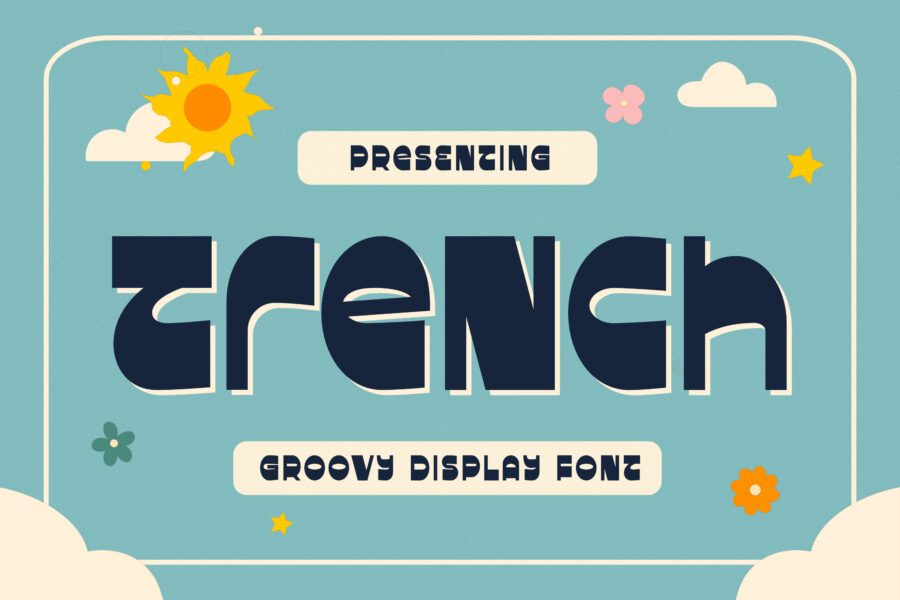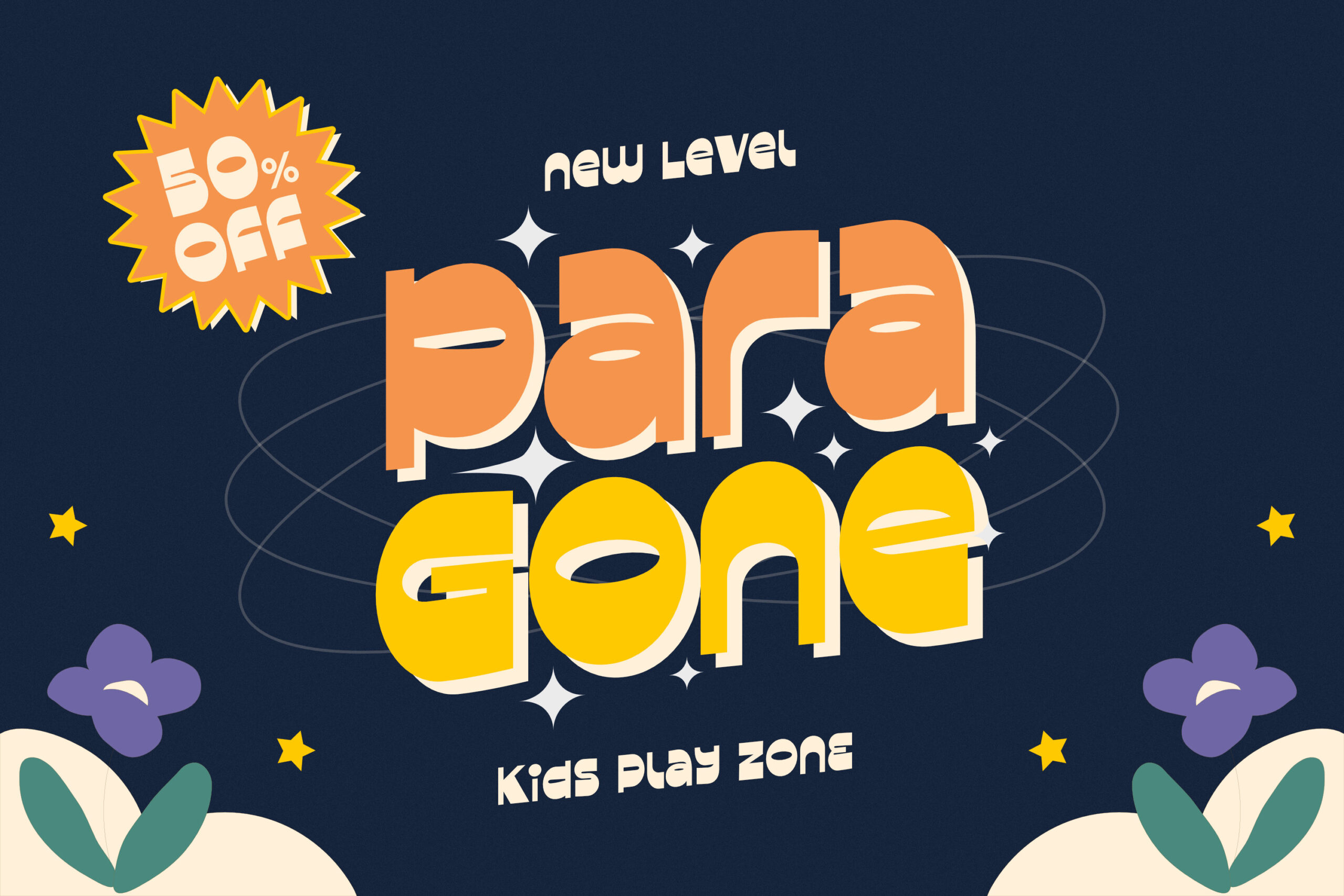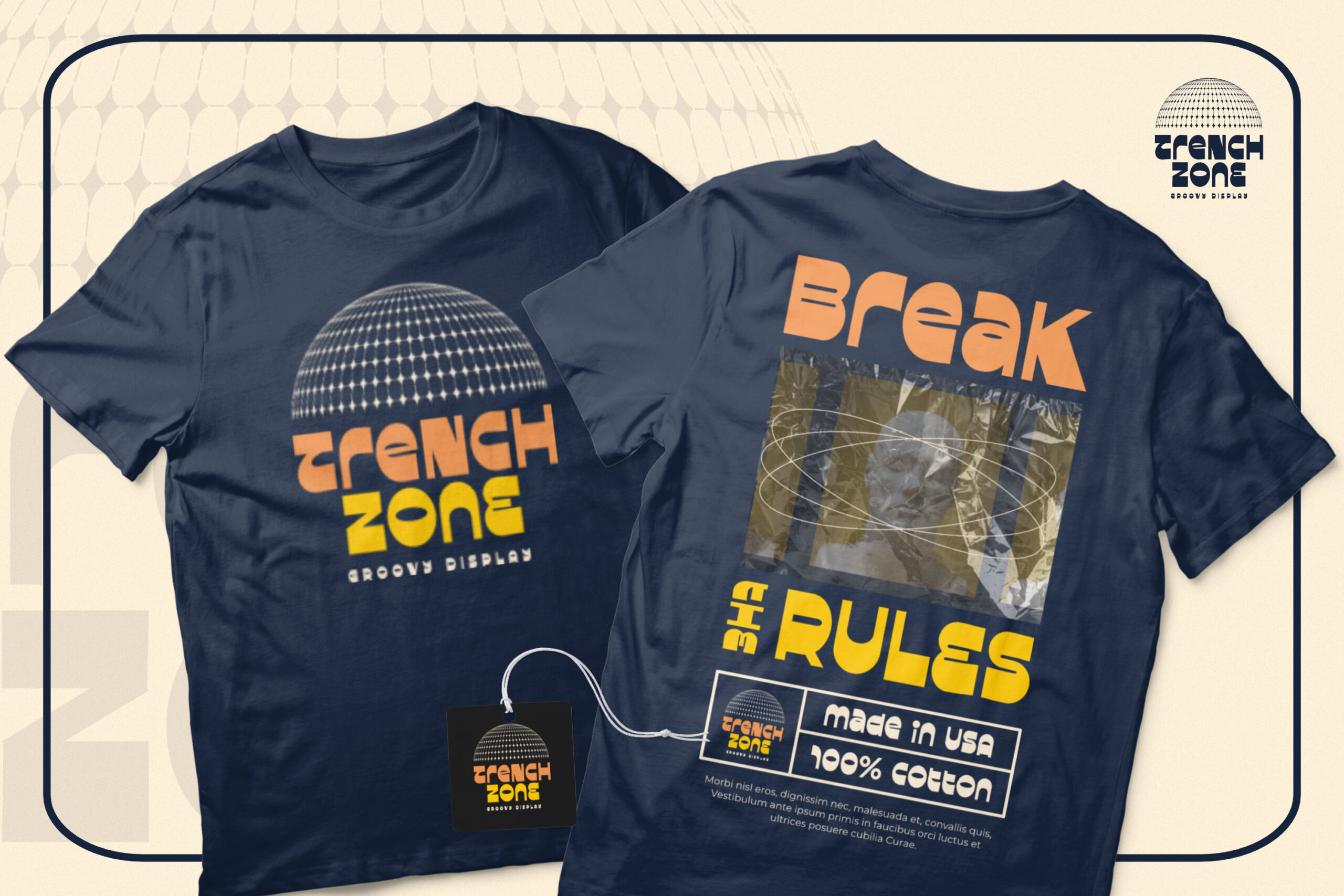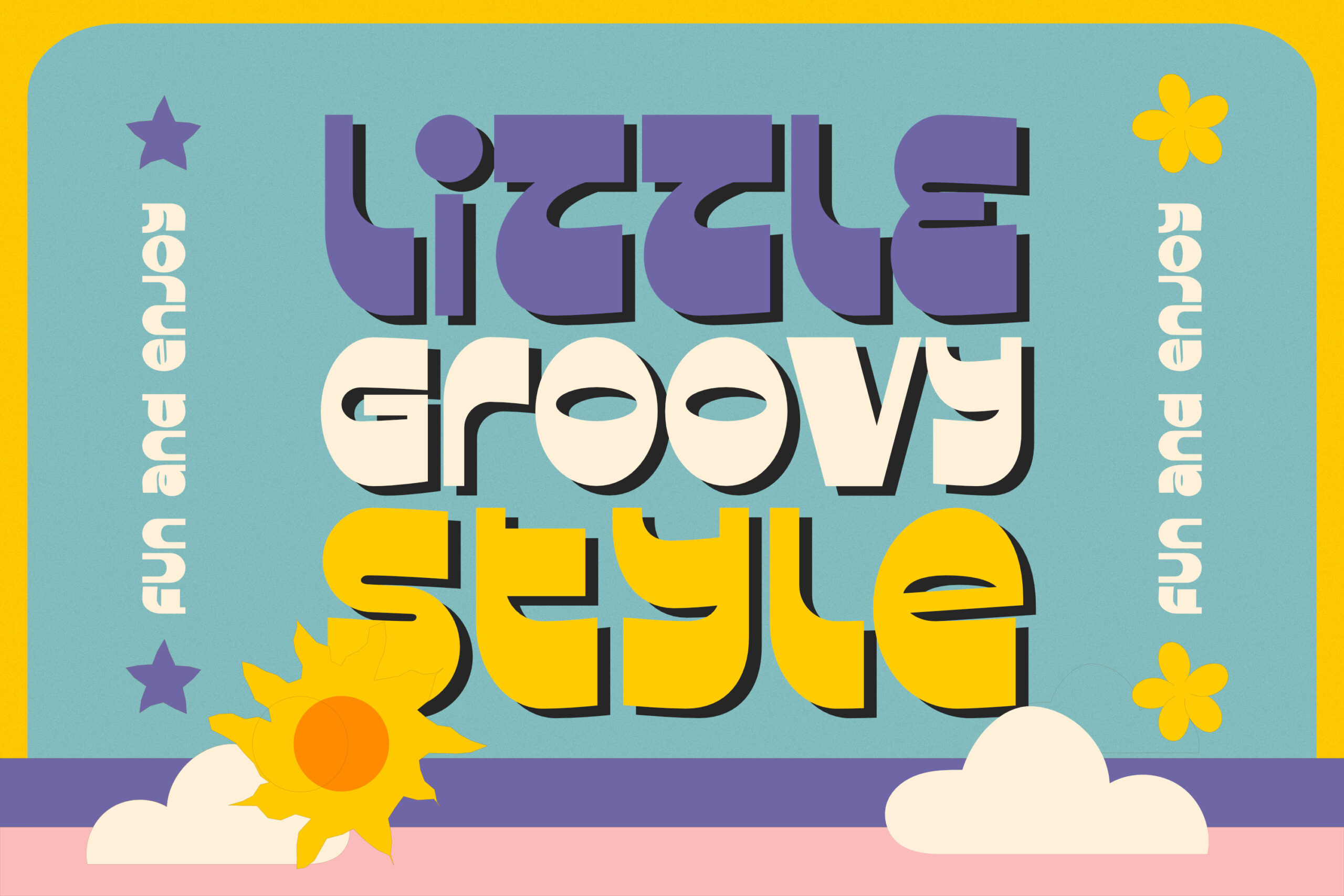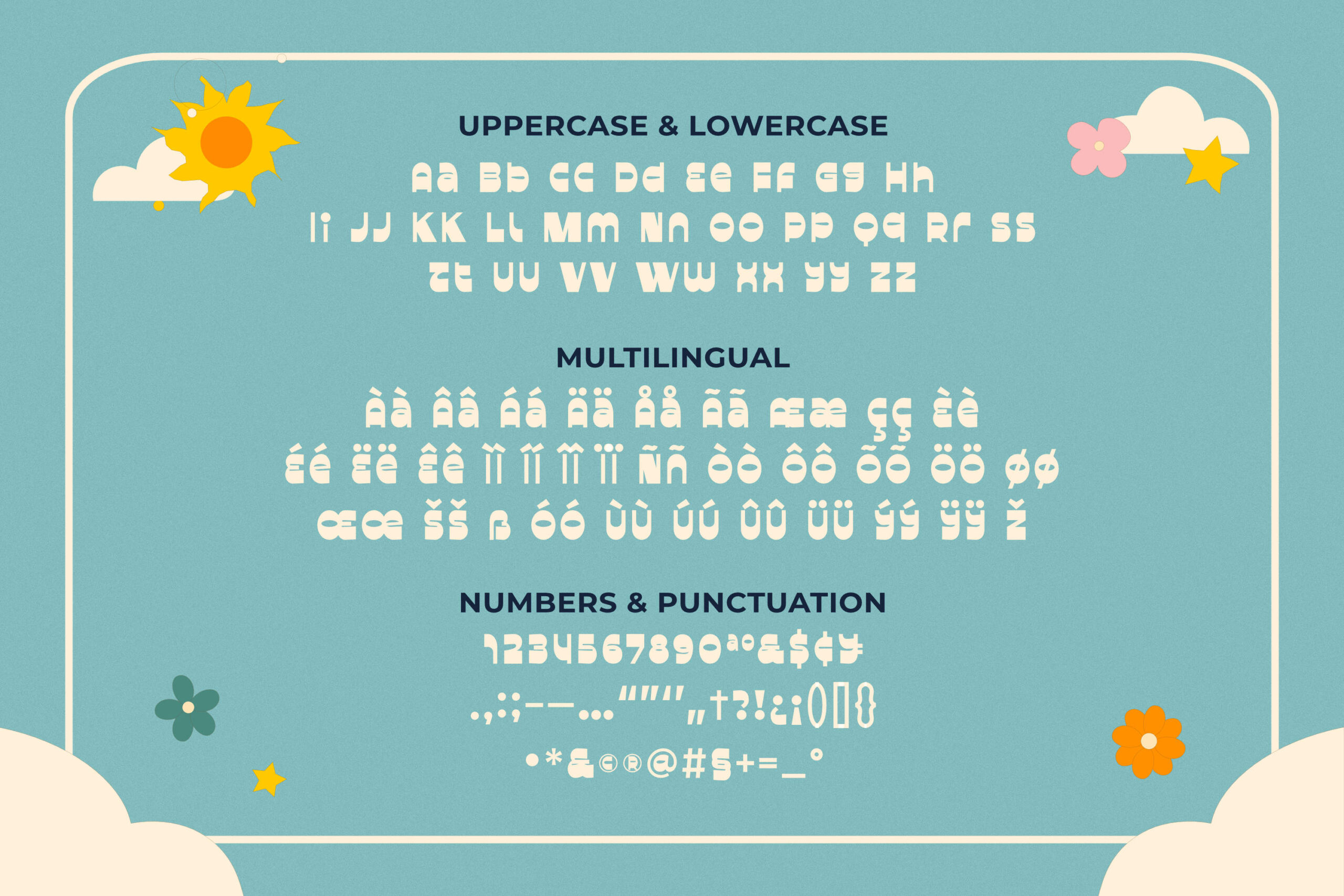
Trench is a groovy display font that radiates retro charm and cheerful vibes. With its bold, chunky letterforms and quirky curves, it effortlessly evokes the spirit of the ’70s while remaining playful and modern. Perfect for children’s content, t-shirts, branding, or any design that craves a fun and nostalgic touch, Trench adds personality and joy to every word it spells.
This font includes uppercase, lowercase, numerals, punctuation, and multilingual characters, making it highly versatile for global use. Whether you’re designing a kids’ playground banner, a disco-themed event poster, or funky product packaging, Trench will keep your designs vibrant, expressive, and irresistibly eye-catching.
Trench